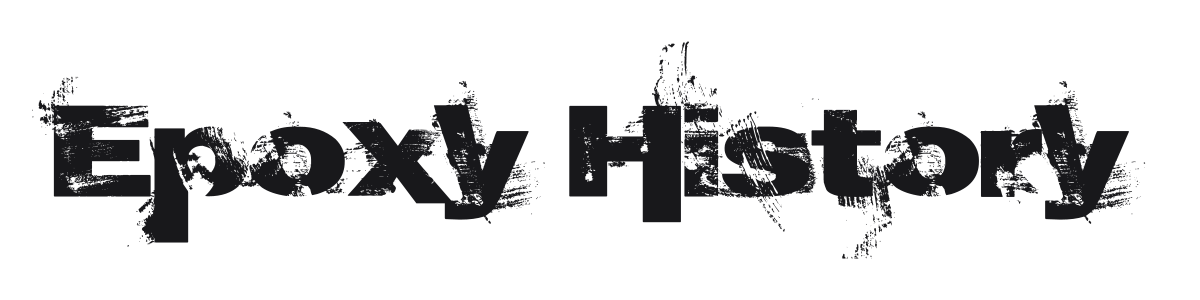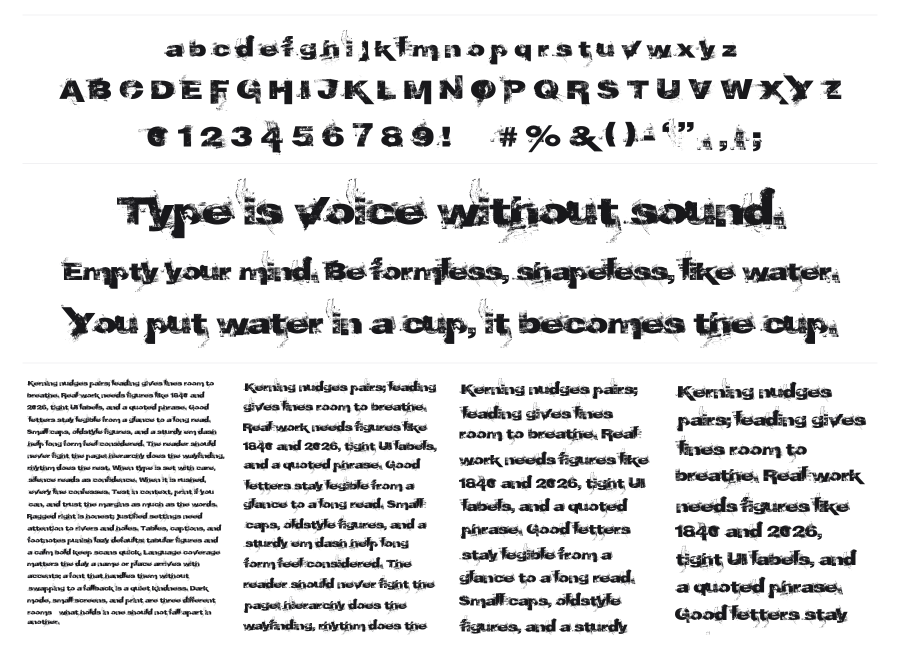
Epoxy History
Epoxy History is a heavy distressed display font built on a bold sans-serif skeleton buried under layers of ink erosion, crumbling edges, and gritty texture. The damage is extreme and deliberate, evoking torn posters, weathered walls, and overinked letterpress. It works at large sizes where the texture has room to read as intentional craft rather than noise.